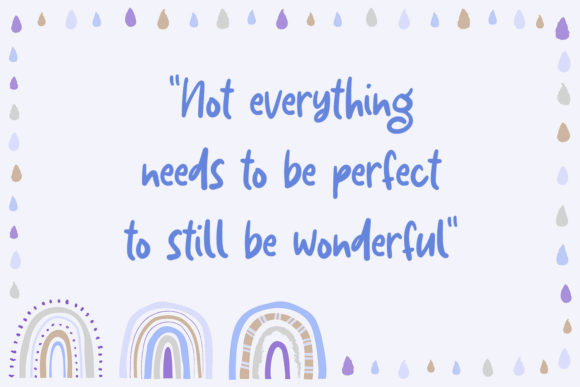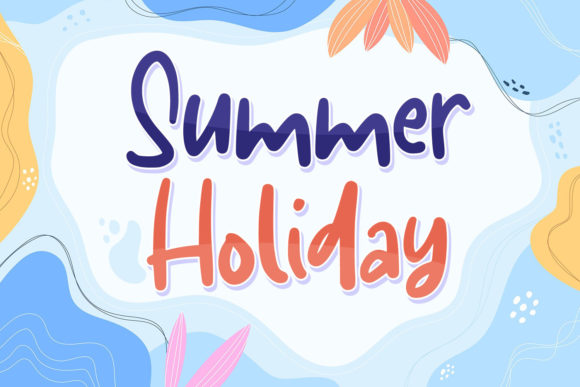
Playful Children Font
db-ku.com - Script & Handwritten -- Playful Children is a sweet and trendy handwritten font. Fall in love with its cute and joyful style and use it to create gorgeous wedding invitations, beautiful stationary art, eye-catching social media posts, and much more!